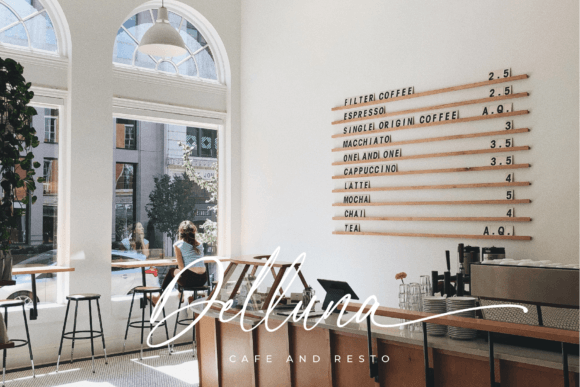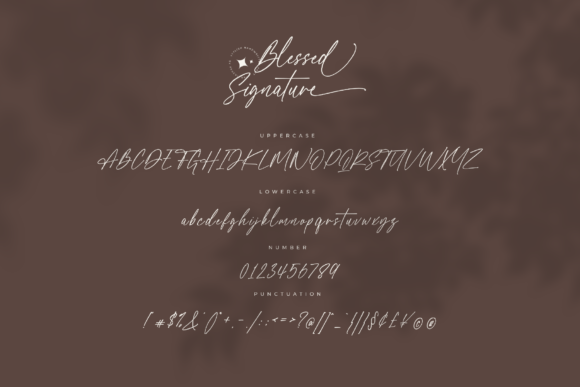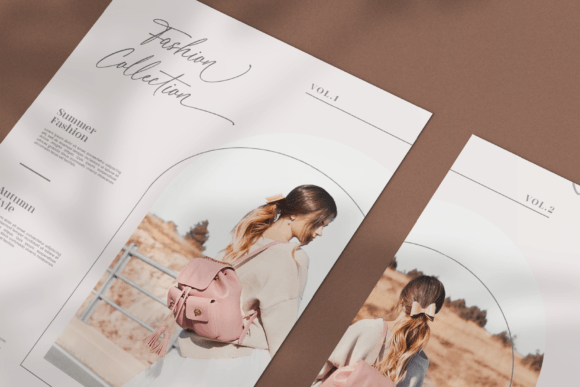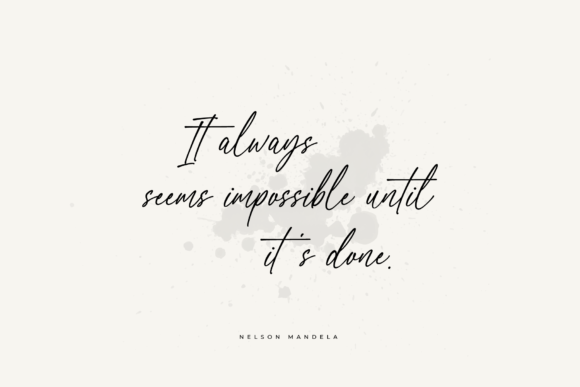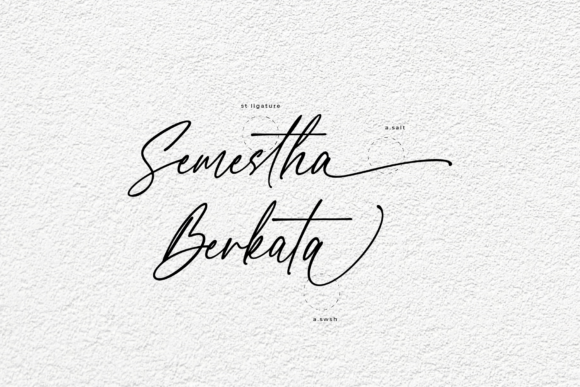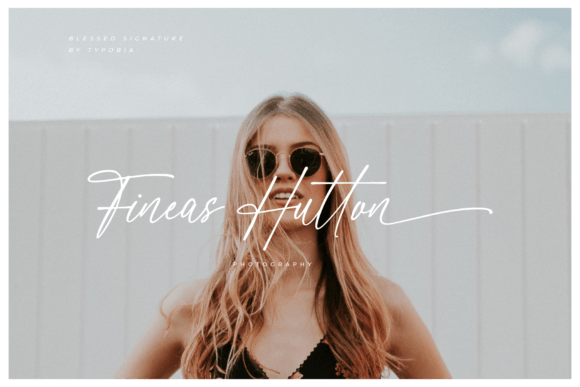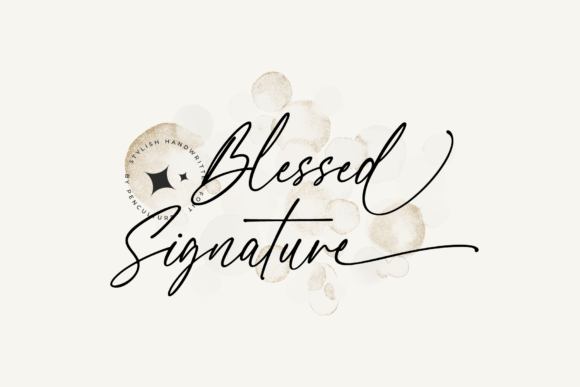
The Blessed Signature Font: A Designer’s New Best Friend
I’ll never forget the time I was working on a wedding invitation project, and my client asked for a font that was ” elegant, yet playful, and totally unique.” I scoured the internet, tried out dozens of fonts, but nothing seemed quite right. That was until I stumbled upon the Blessed Signature font. ✨
This stunning handwritten font has been a game-changer for my designs, and I’m excited to share its beauty with you. Blessed Signature is a stylish and dainty font with lovely curves that looks stunning on wedding invitations, thank you cards, quotes, greeting cards, logos, business cards, and every other design that needs a handwritten touch.
- ✨ Elegant and refined, yet approachable and friendly
- ✅ Beautifully crafted with attention to detail
- 💕 Perfect for designs that need a touch of sophistication and whimsy
- 🎉 Works well in a variety of design contexts, from digital to print
While Blessed Signature is an amazing font, there are a few things to keep in mind: 🤔
- ⚠️ Some characters may not work well in all design programs or platforms
- ⚠️ Limited availability of certain OpenType features or glyphs
One of the best things about Blessed Signature is its range of OpenType features and glyphs. These allow you to customize your text and add visual interest to your design. Some of the features you can expect to find include:
- Ligatures: These are special character combinations that can add a touch of elegance to your text
- Stylistic alternates: These allow you to swap out characters for alternate versions, adding visual interest to your text
- Glyphs: These are special characters that can add a touch of whimsy to your design
Blessed Signature was designed with love and care by a talented font designer who’s passionate about creating beautiful, unique typefaces. The font’s inspiration comes from classic handwritten scripts, with a modern twist. The designer wanted to create a font that was both elegant and approachable, perfect for designs that need a touch of sophistication and whimsy.
Q: What is Blessed Signature font?
A: Blessed Signature is a stylish and dainty handwritten font with lovely curves, perfect for designs that need a touch of elegance and whimsy.
Q: Is Blessed Signature easy to read?
A: Yes, Blessed Signature is a clear and legible font, making it perfect for designs that need to communicate a message.